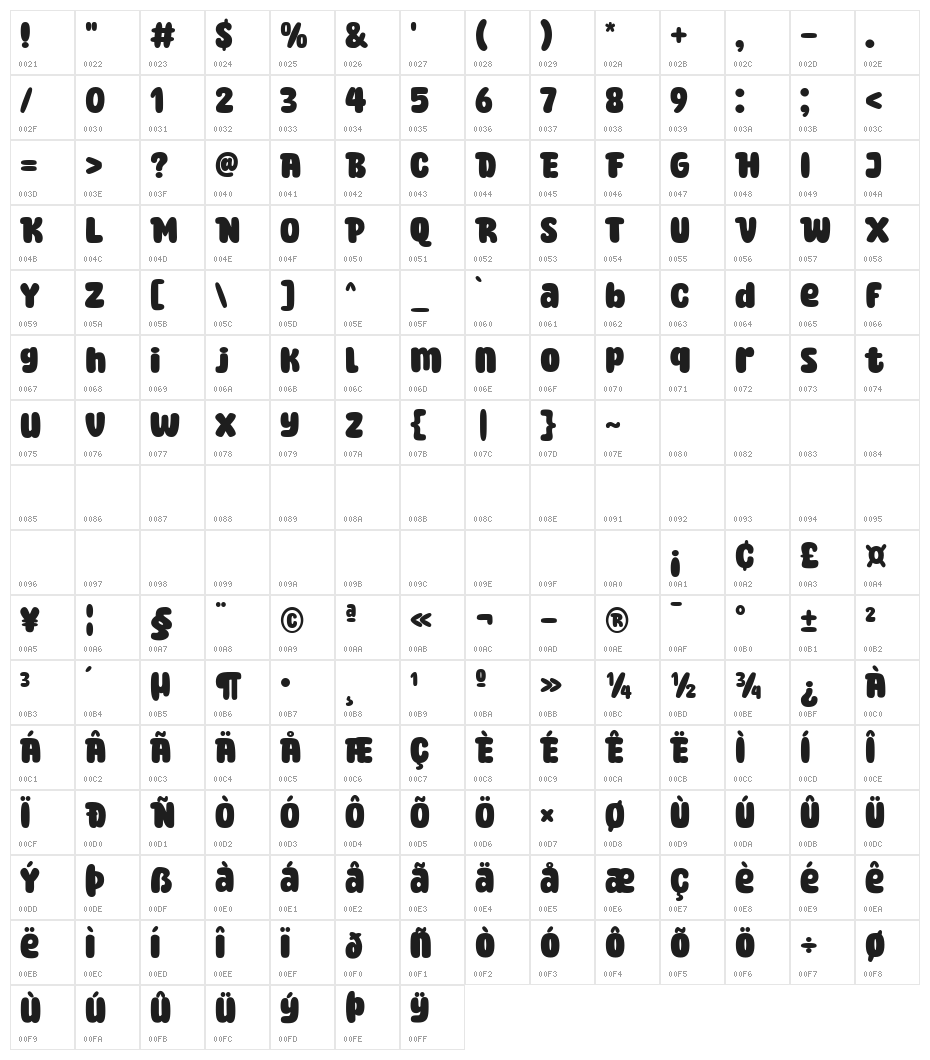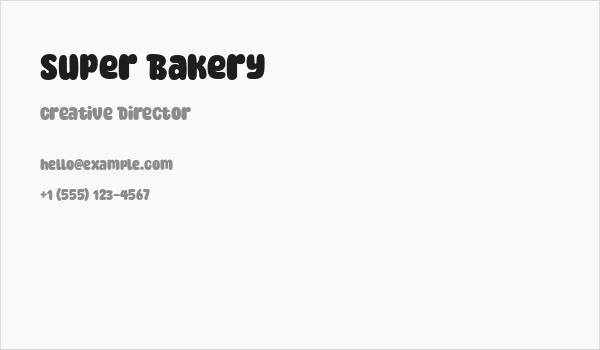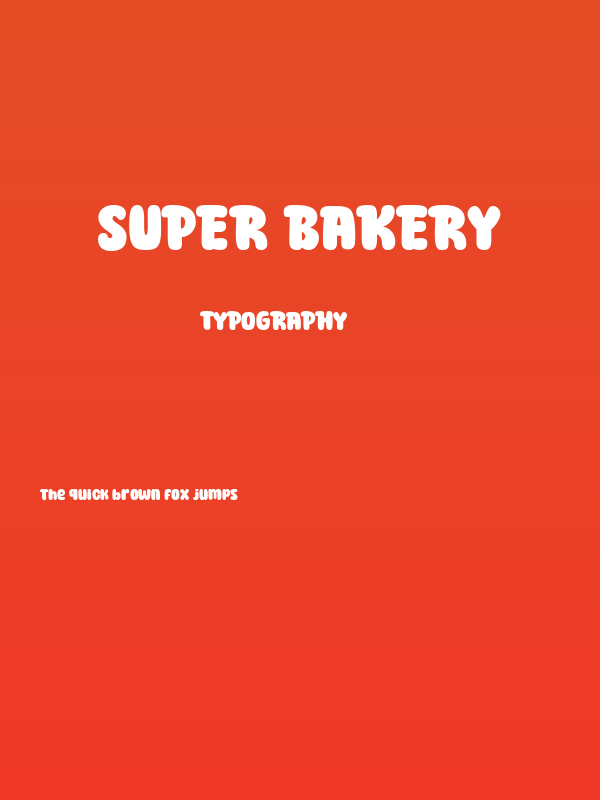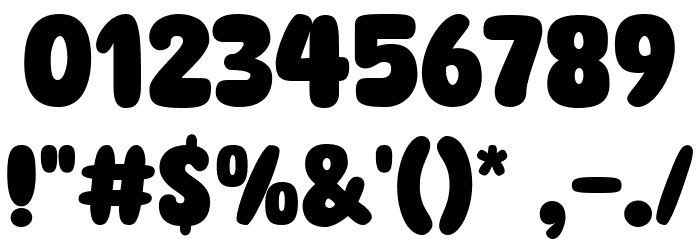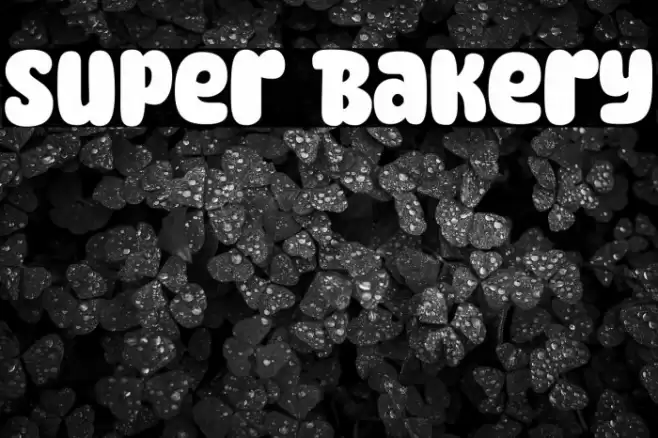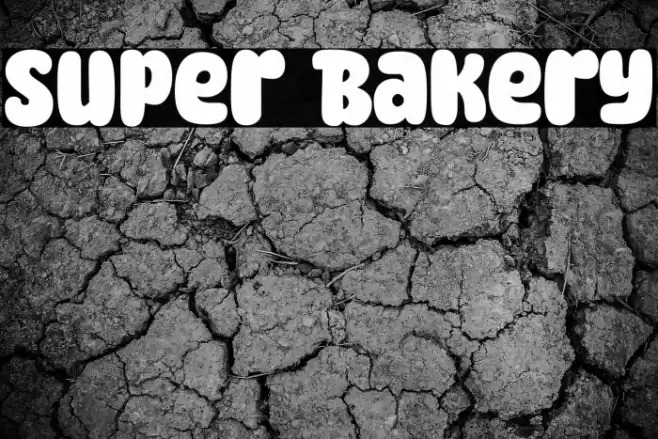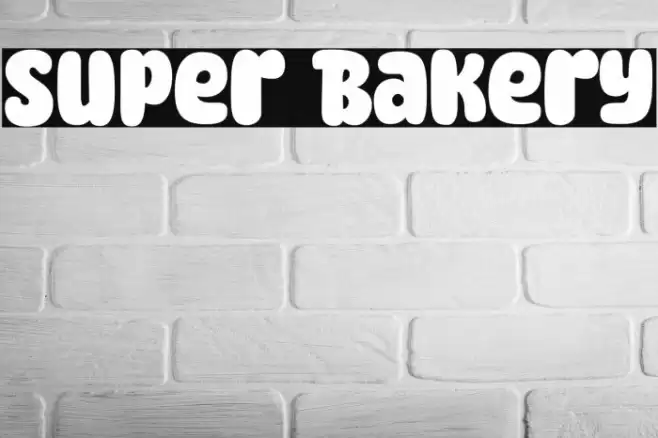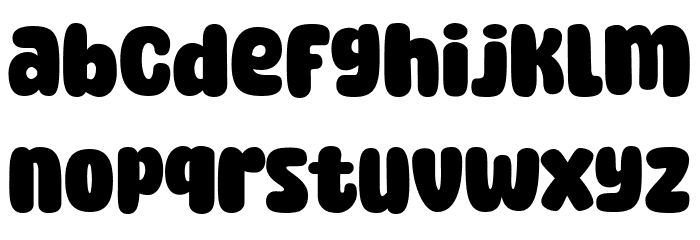
Super Bakery Font
Super Bakery Description
This font features a playful and bold design with rounded edges and a bubbly appearance. The characters are thick and uniform, giving a sense of fun and approachability. The uppercase and lowercase letters maintain a consistent style, with a slight whimsical touch that adds to its charm. Numbers and special characters are equally bold and rounded, ensuring readability while maintaining the font's unique style. The overall design is cohesive, making it suitable for projects that require a friendly and inviting look.
| Use Case | Logos, Posters, Invitations |
| Proposed Projects | Ideal for children's books, playful branding, party invitations, and casual posters. |